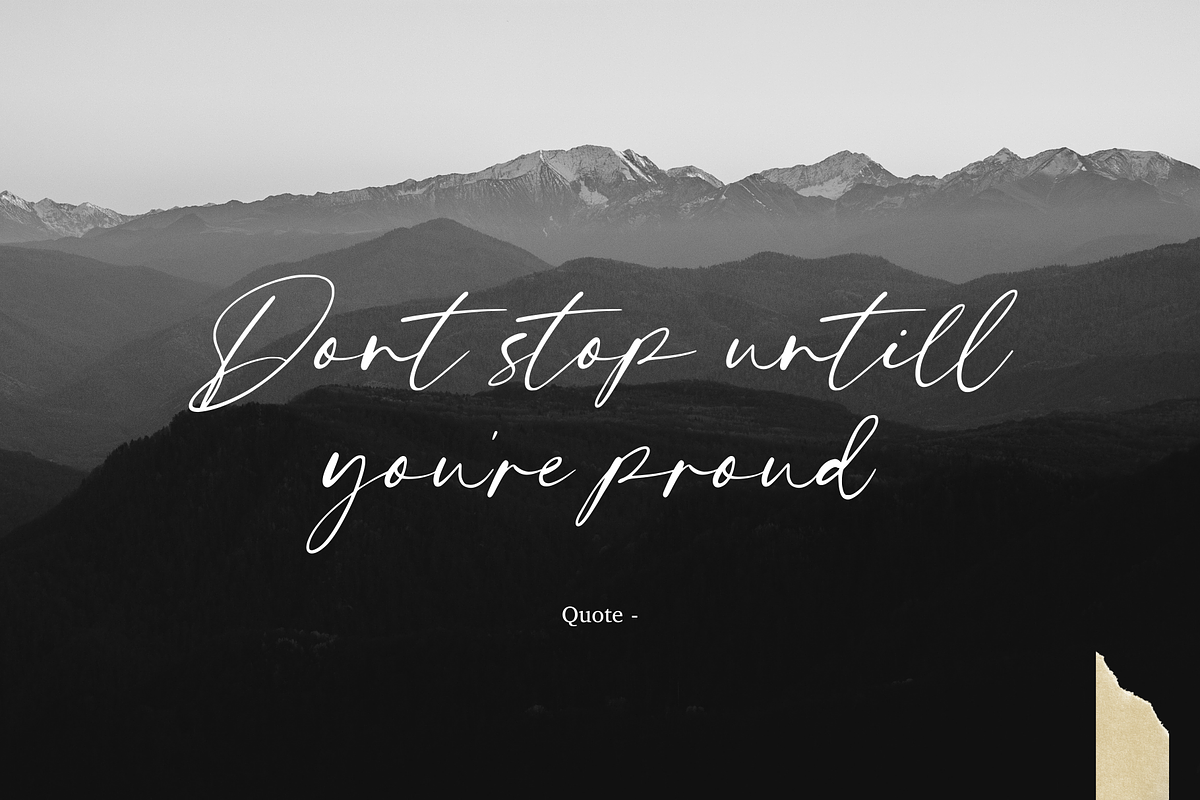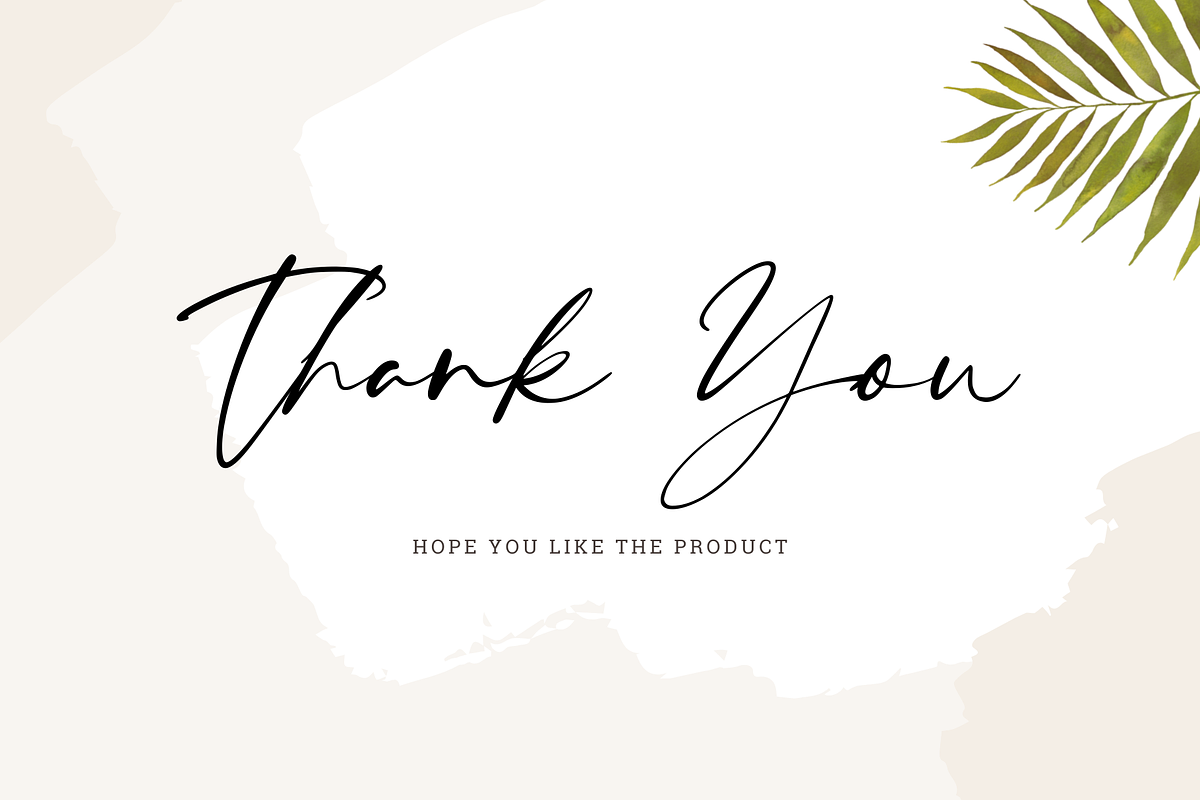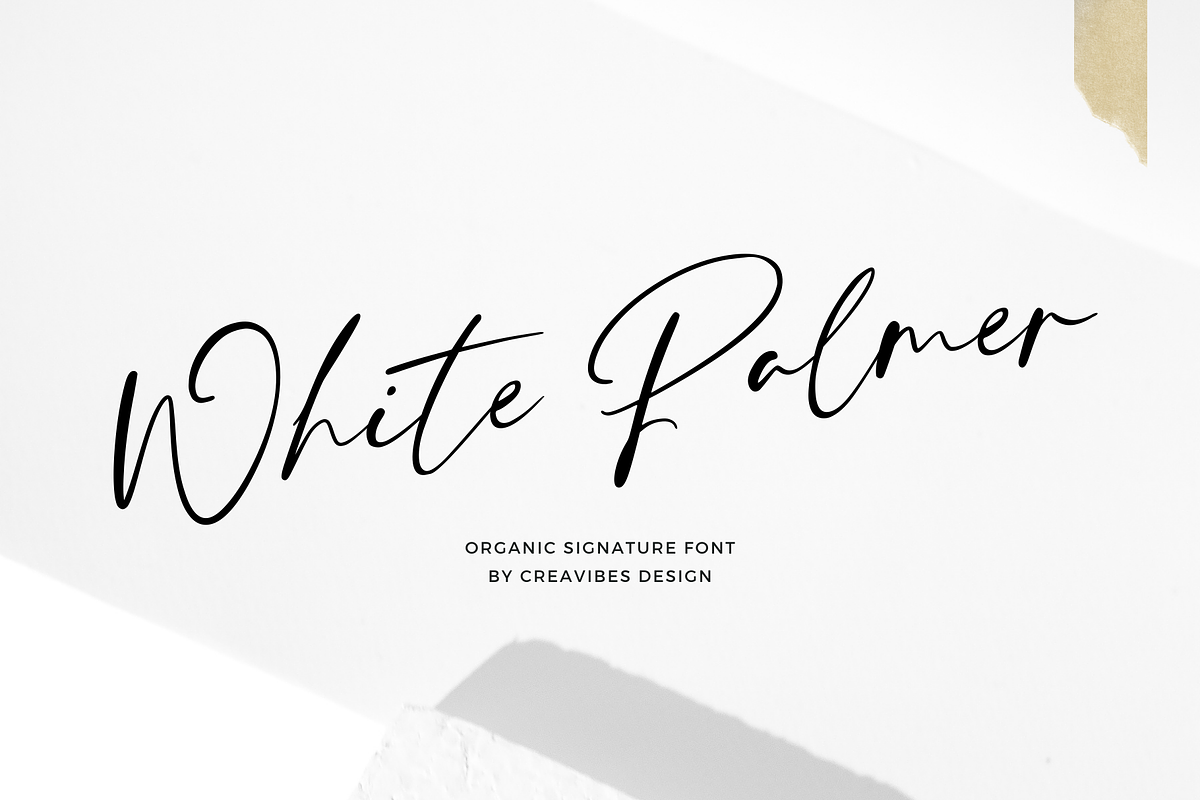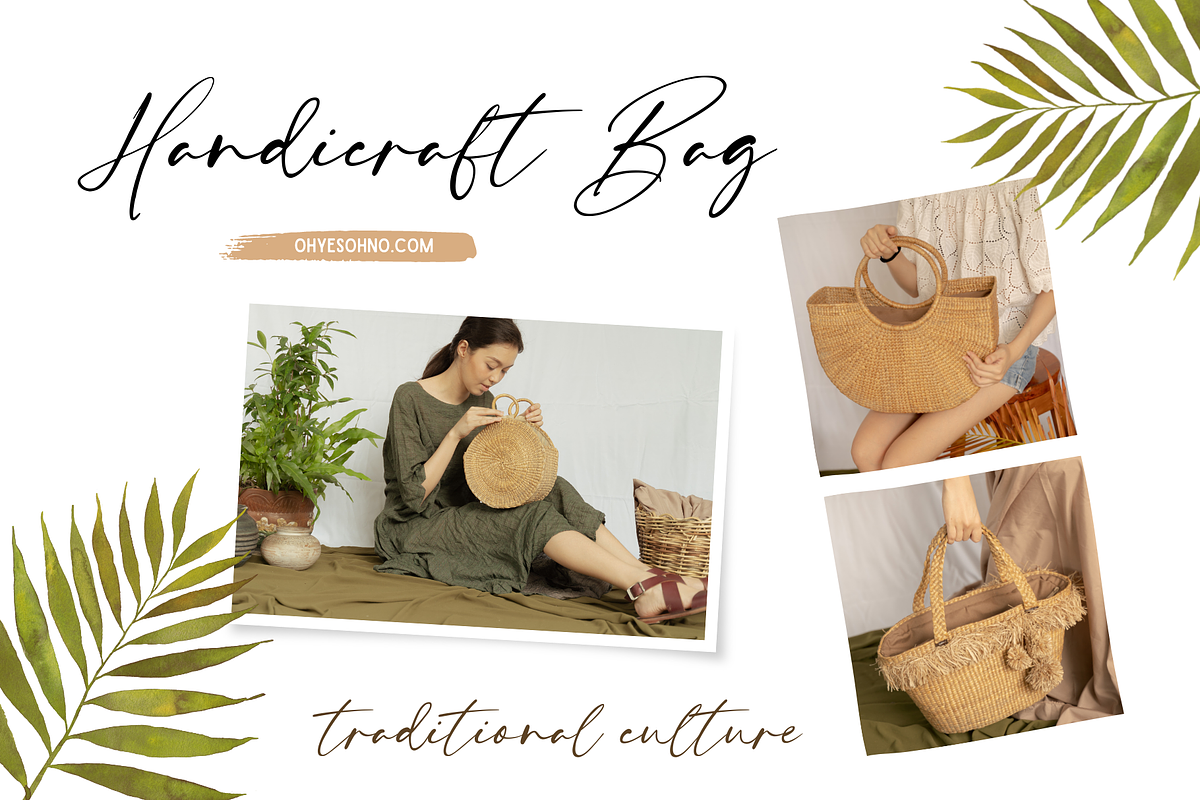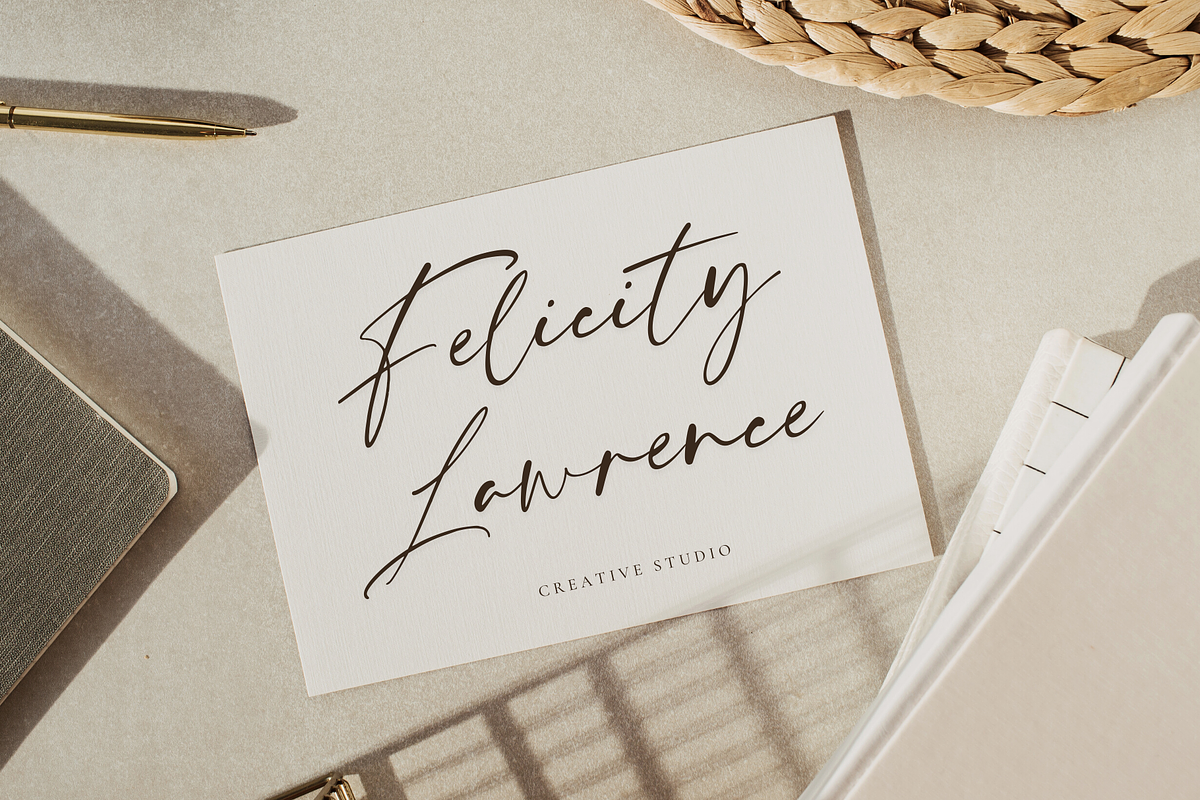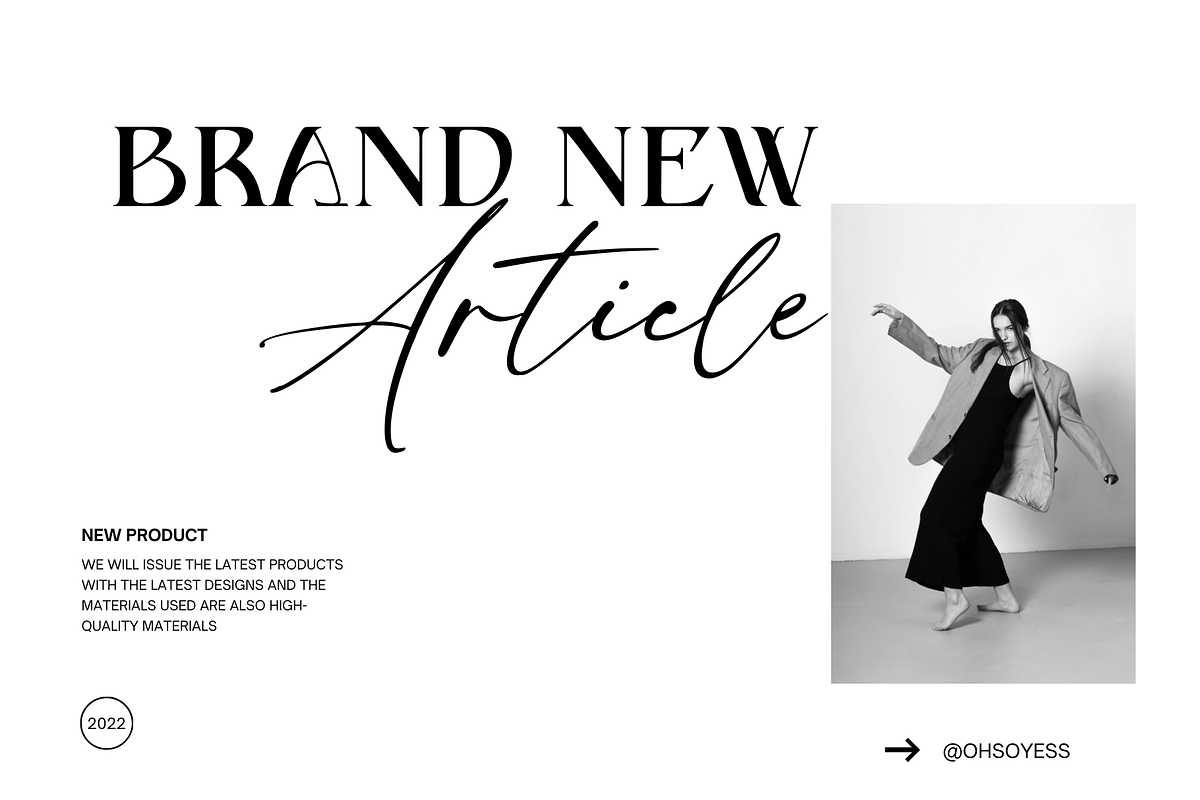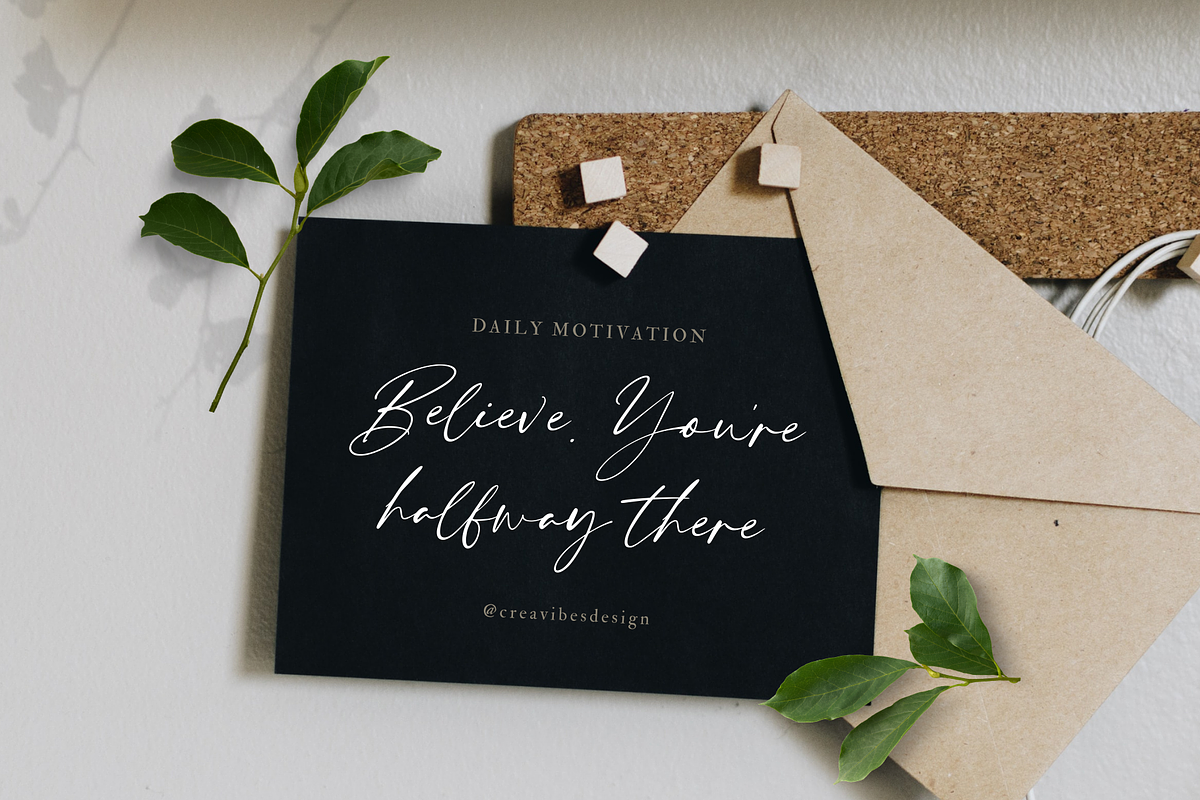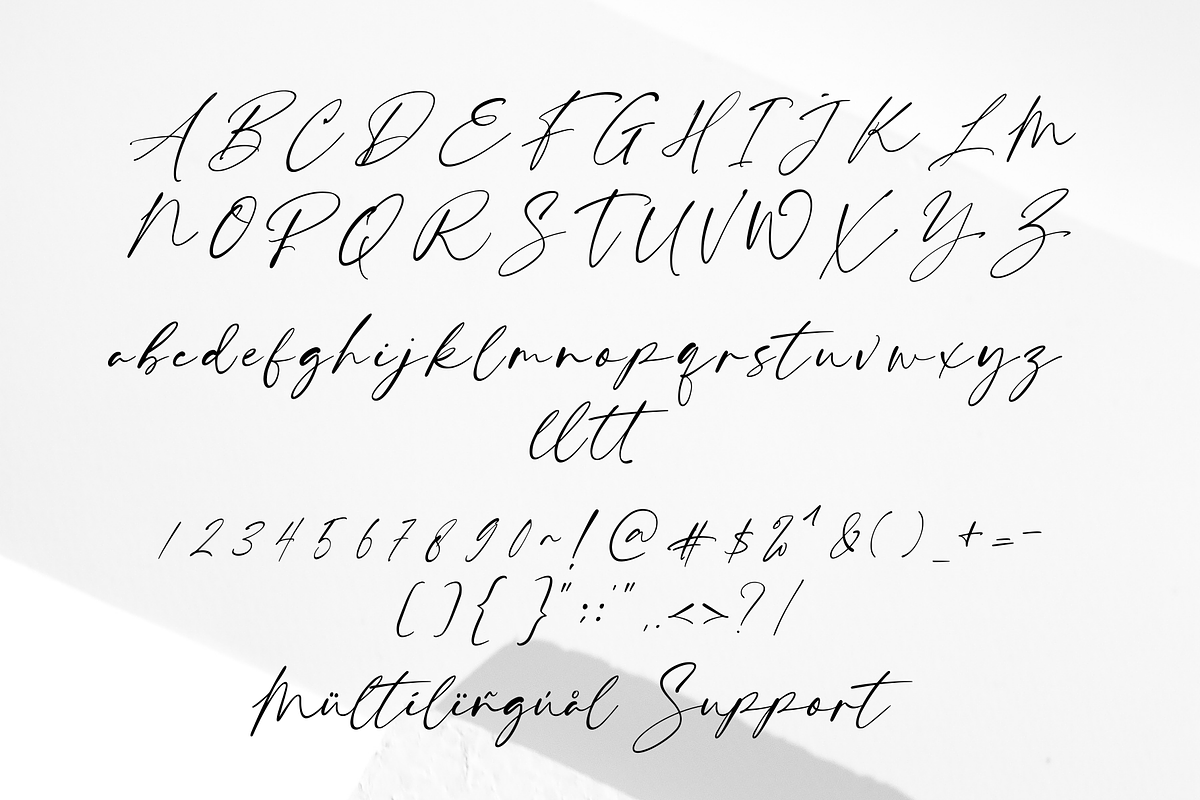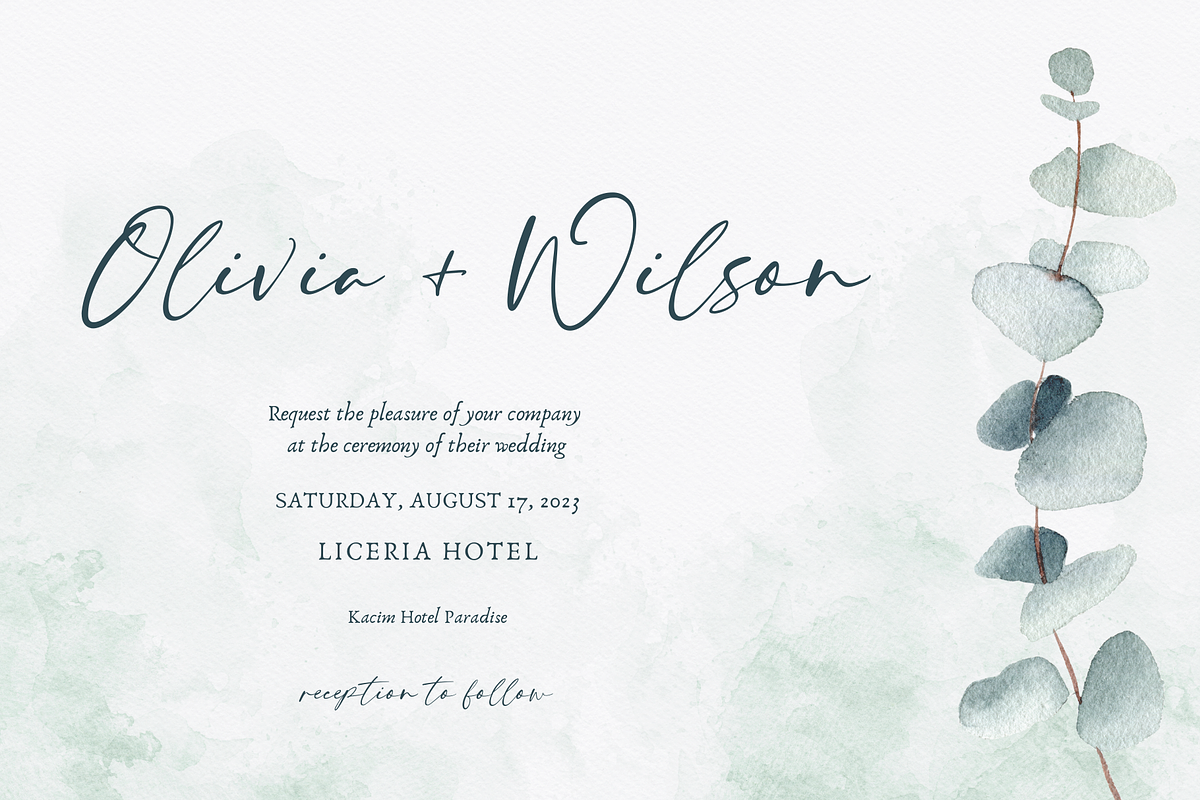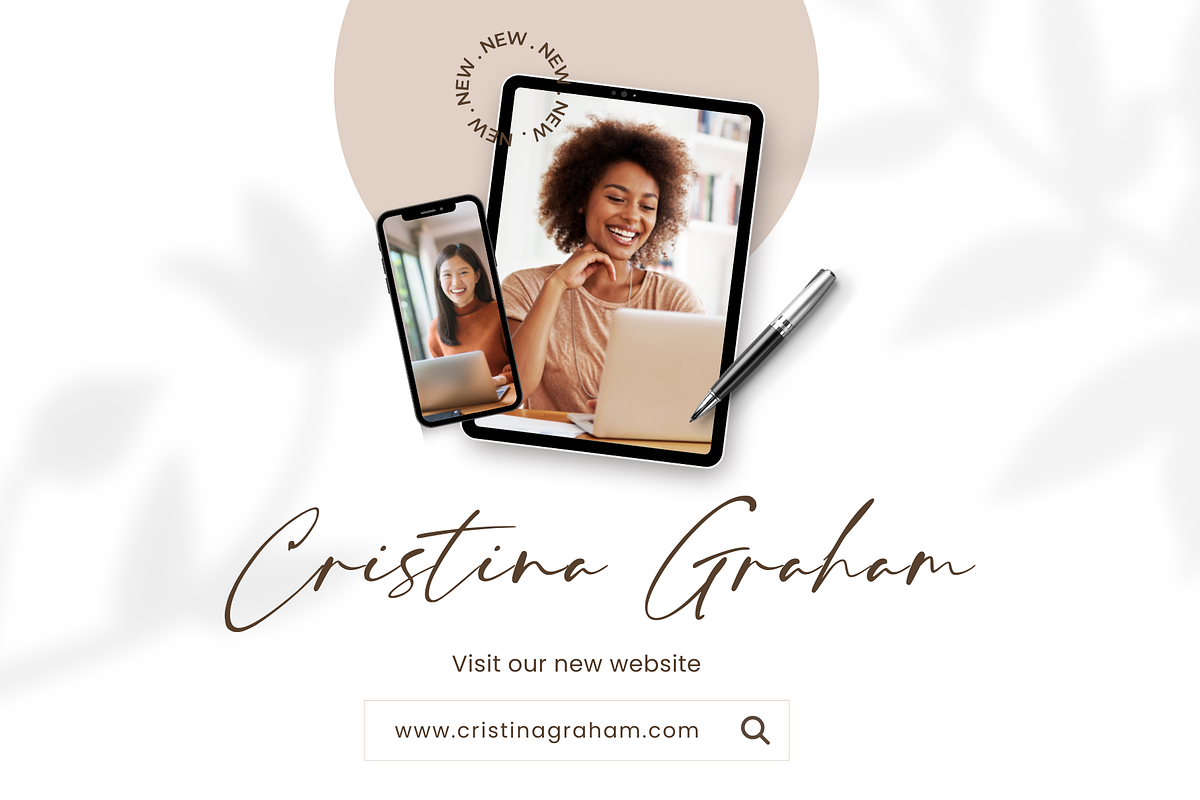
White Palmer - Organic Signature
White Palmer - Organic Signature Font, this font is perfect for branding, invitation, stationery, wedding designs, social media posts, advertisements, product packaging, product designs, label, photography, watermark, special events, and more.
- Uppercase and lowercase letters
- Multilingual, numerals, and punctuation